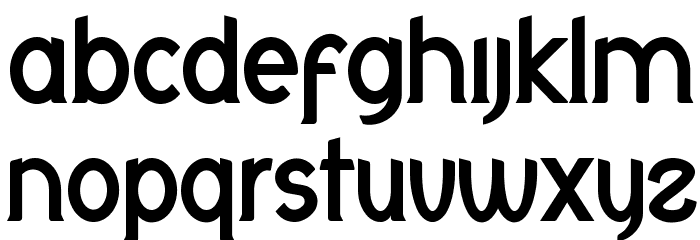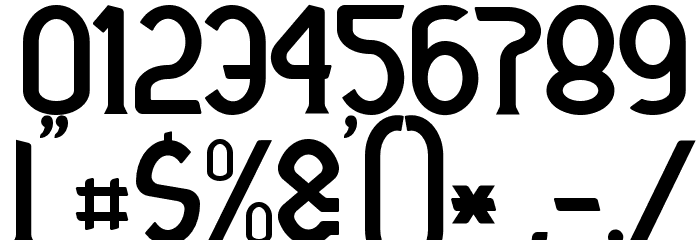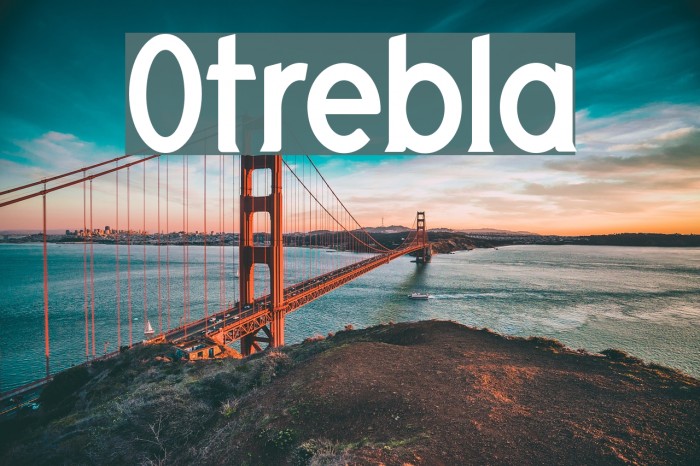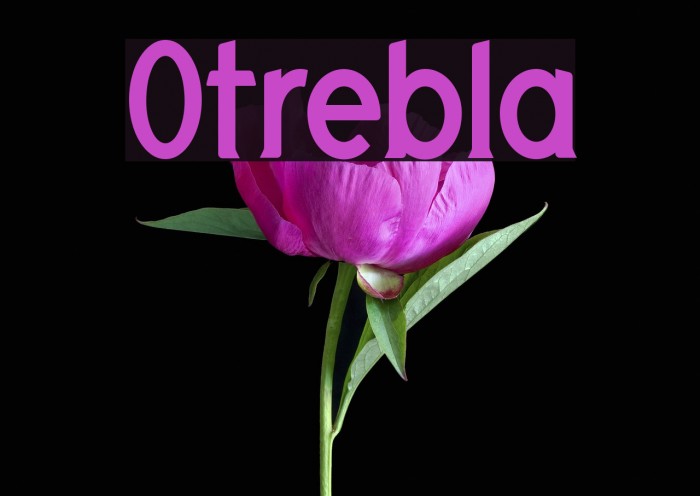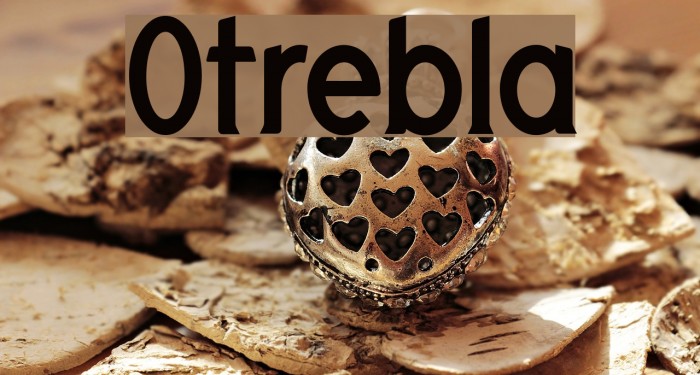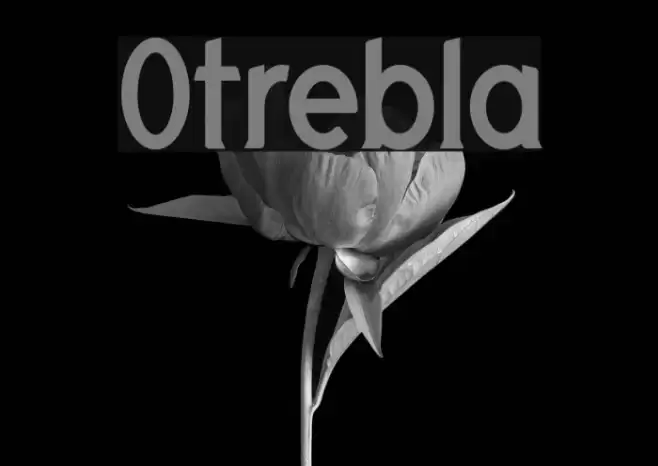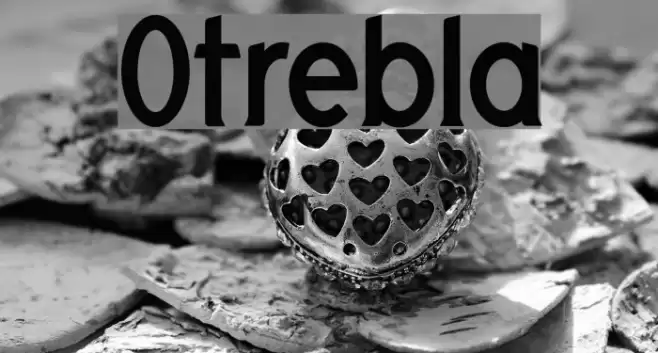
Otrebla Font
This font features a unique and modern design with a playful twist. The characters are bold and rounded, giving a friendly and approachable feel. The uppercase letters have a consistent height, while the lowercase letters maintain a smooth and cohesive flow. The numbers are distinct and easily readable, with a slight geometric influence. Special characters are creatively designed, adding to the font's overall charm. The font's style is versatile, making it suitable for various design projects that require a contemporary and engaging look.
A modern, playful font with bold, rounded characters and a friendly style.